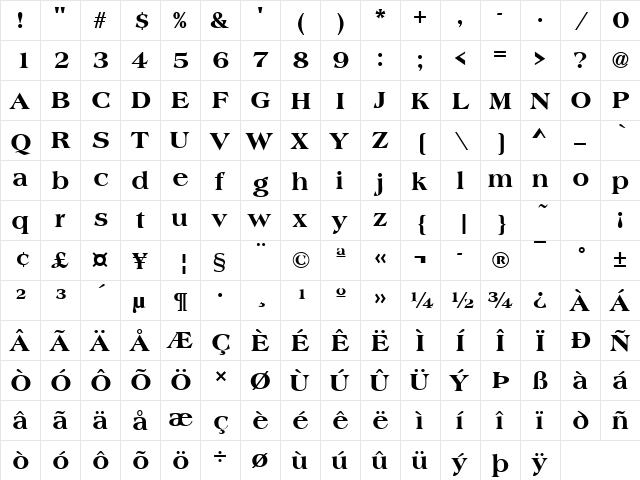
Americana Becker Ext Bold Regular
Design Context for Americana Becker Ext Bold Typeface
Americana Becker Ext Bold offers clean, dependable letterforms without strong stylistic allegiance, making it a practical choice for designers who need flexibility. The heavy weight commands attention and anchors typographic hierarchies.